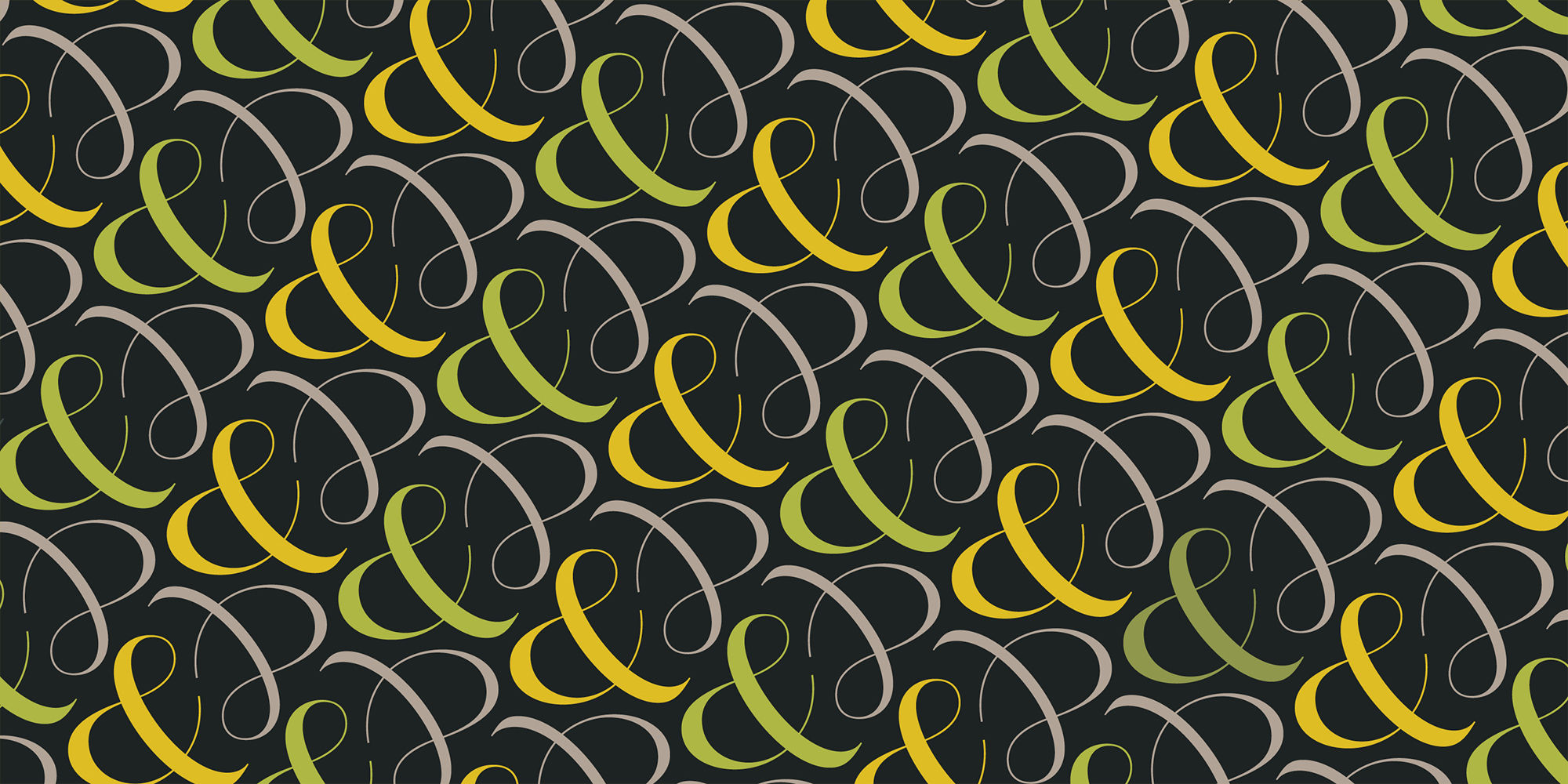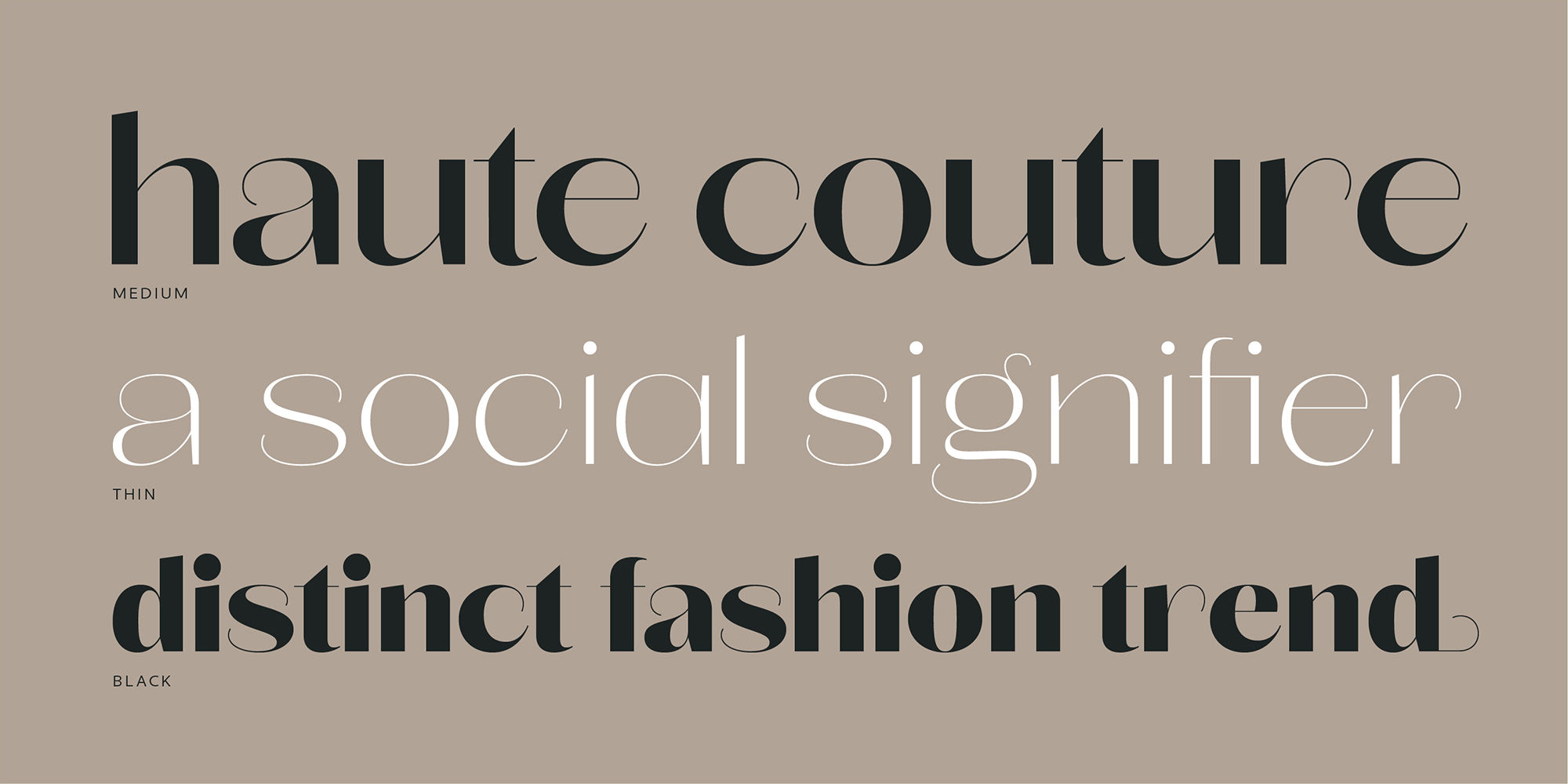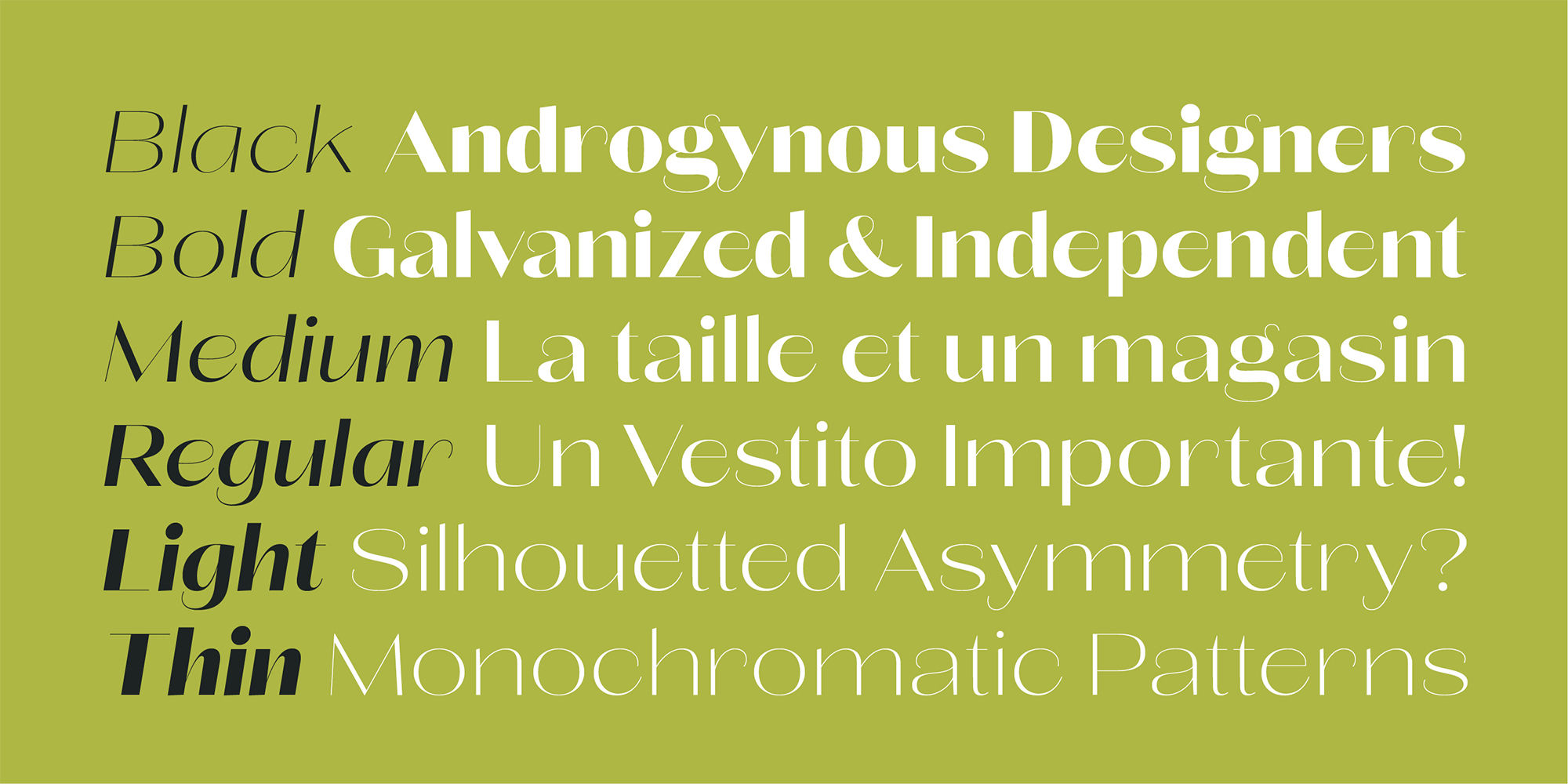
Lust Sans
fi fl
Standard Ligaturesliga
K Q R y
Swashswsh
K R k z
Titling Alternatestitl
12345/67890
Fractionsfrac
x45 y8 z3
Superscriptsups
Na3CH4Fe2
Scientific Inferiorssinf
2nd 3rd 4th
Ordinalsordn
[H] ¡H ¿H
Case-Sensitive Formscase
A H K R
Stylistic Set 1ss01
W a g k t
Stylistic Set 2ss02
Lust Sans is the penultimate exploration of producing a high-contrast sans wholly influenced by its bracketed ancestor. The aspect of this endeavor I enjoyed the most was finding sneaky ways to infuse warmth and whimsy into the letterforms when you least expect it. The result, however, is subtle and uniquely balances against Lust and Lust Didone without becoming cold and overbearing. To accomplish this, Lust Sans has 6 weights. What I found during development was, based on any setting where Lust or Lust Didone were in the same layout, the amount of contrast shown with Lust Sans needed to be adjusted. Expanding the weight offering, produces opportunities for Lust Sans to modulate the rhythm of the layout comfortably while keeping contrast—this is even more obvious with the Italics. I love those. You will too. If you don’t, you do not have a soul. Not sorry.
Lust Sans is the very best high-contrast sans solution for the Lust (original typeface) and Collection. But it’s not the only great one—go check out the original Optima by Hermann Zapf or Kris Sowersby’s masterpiece Domaine Sans.
The Lust Collection is the culmination of 5 years of exploration and development, and I am very excited to share it with everyone. When the original Lust was first conceived in 2010 and released a year and half later, I had planned for a Script and a Sans to accompany it. The Script was released about a year later, but I paused the Sans. The primary reason was the amount of feedback and requests I was receiving for alternate versions, expansions, and ‘hey, have you considered making?’ and so on. I listen to my customers and what they are needing… and besides, I was stalling with the Sans. Like Optima and other earlier high-contrast sans, they are difficult to deliver responsibly without suffering from ill-conceived excess or timidity. The new Lust Collection aggregates all of that past customer feedback and distills it into 6 separate families, each adhering to the original Lust precept of exercises in indulgence and each based in large part on the original 2010 exemplars produced for Lust. I just hate that it took so long to deliver, but better right, than rushed, I imagine.